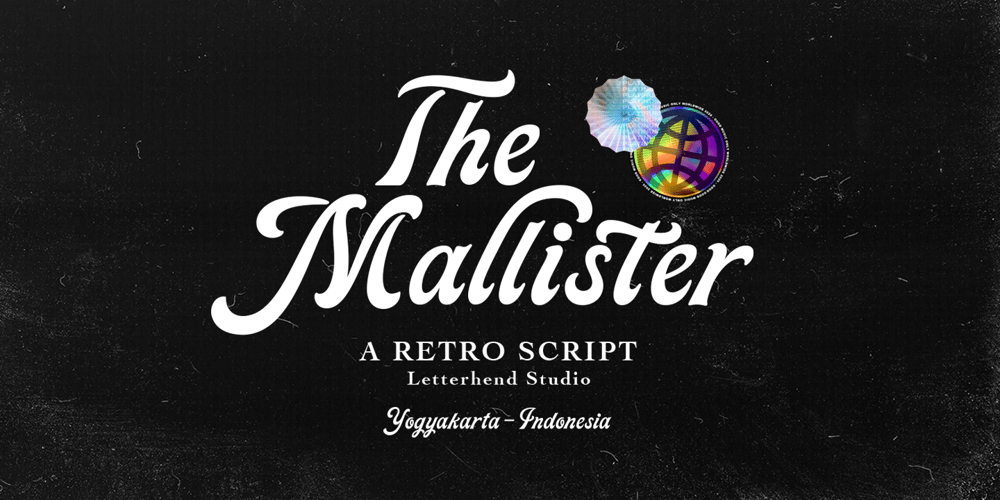
The Mallister
The Mallister font
The Mallister Font Family was designed by Hendry Juanda and published by Letterhend. The Mallister contains 1 styles and family package options. The Mallister is a script with a touch of vintage look and feel. This type of font perfectly made to be applied especially in logo, headline, signage and the other various formal forms such as invitations, labels, logos, magazines, books, greeting / wedding cards, packaging, fashion, make up, stationery, novels, labels or any type of advertising purpose.Features : uppercase & lowercase numbers and punctuation multilingual alternates / swashes and ligatures PUA encoded We highly recommend using a program that supports OpenType features and Glyphs panels like many of Adobe apps and Corel Draw, so you can see and access all Glyph variations.